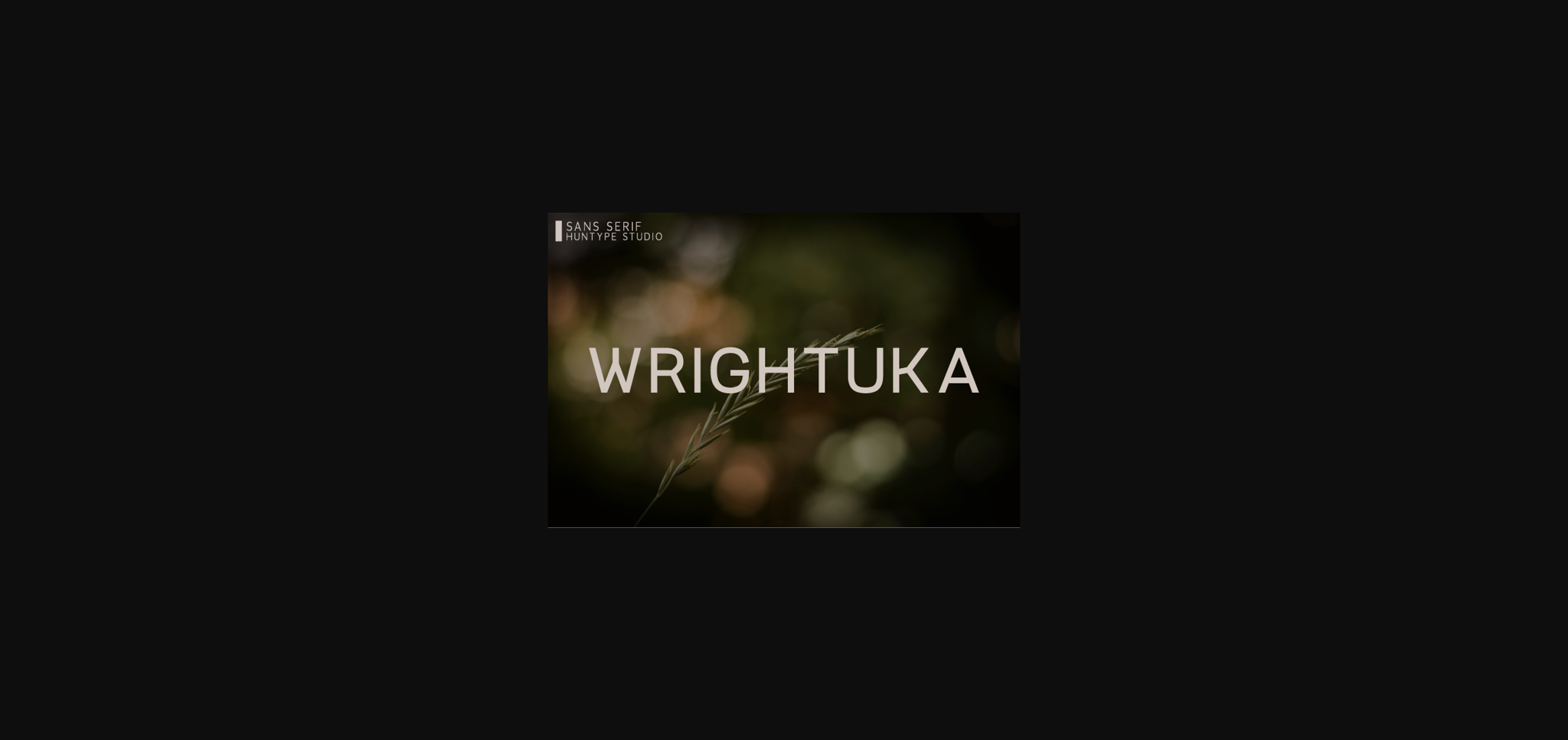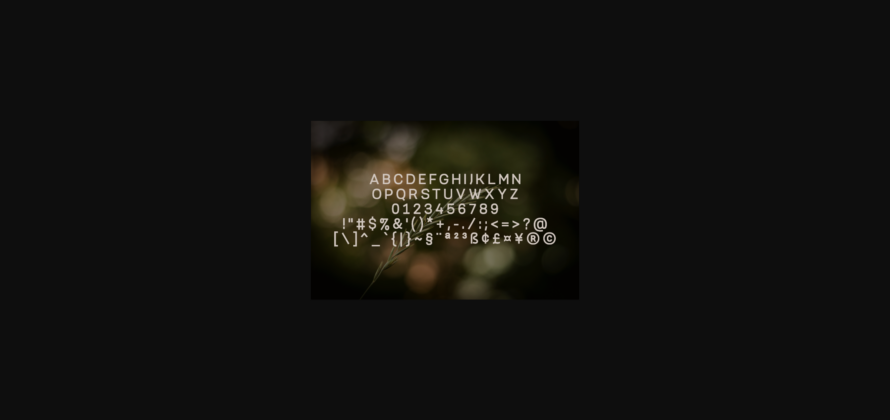
Wrightuka is a strong sans serif font. It will look particularly adept when used in logos, branding, packaging design, and much more. This masterfully designed font is a true must-have.